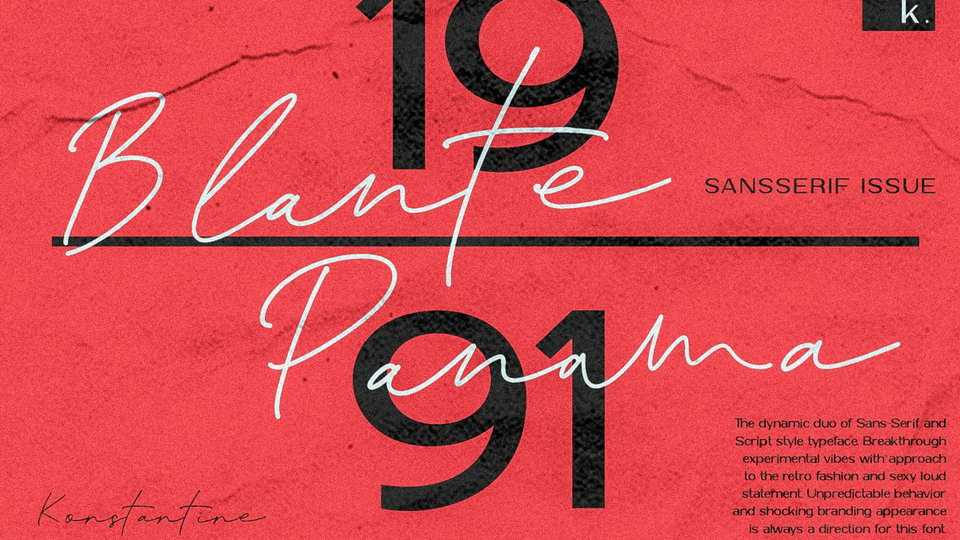
Download Blante Panama Script, a signature style script. Breakthrough experimental vibes with approach to the retro fashion and sexy loud statement. Unpredictable behaviour and shocking appearance branding is always a direction for this font.
Designer: Konstantine Studio